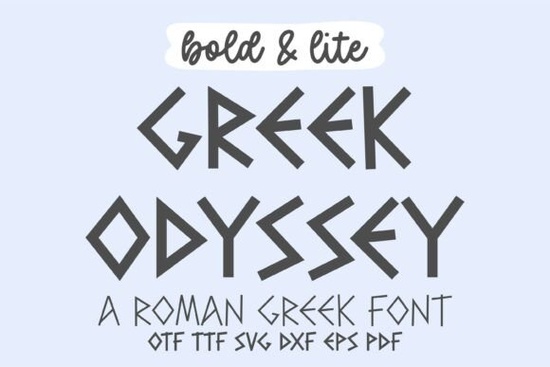
If you're looking for a typeface that brings a sense of ancient history and refined structure to your projects, the Greek Odyssey Font is worth a close look. This Roman Greek-inspired font combines bold, geometric letterforms with a classic elegance that instantly reminds you of marble columns and sculpted stone. Whether you're designing a poster, a wedding invitation, or a brand logo, this font gives you both a strong, assertive style (Bold) and a lighter, more delicate version (Lite) so you can match the tone of your work exactly.
What makes the Greek Odyssey font different from other serif fonts?
Most serif fonts aim for readability, but this one goes further by adding a distinct architectural feel. Each character is carefully crafted to keep the text clear without losing that decorative, historic look. The font includes uppercase and lowercase letters, numbers, punctuation, symbols, alternates, and even multilingual support. That means you can use it for both English and other language projects without worrying about missing accents or special characters. Plus, with PUA encoding, all those extra glyphs are easy to access in any design software.
Is this font good for wedding invitations or formal branding?
Yes, because the Lite style offers a restrained elegance that doesn't overpower your text. You can pair it with simpler fonts for body copy and use Greek Odyssey for headings or monograms. Many designers use it for fashion branding, wine labels, or museum exhibits. The historic character gives your work a timeless, premium feel without looking outdated.
How does it compare to other display fonts?
- Bold style – for headlines, logos, and strong statements
- Lite style – for elegant invitations, subtitles, or body text
- Multilingual support – covers many European languages
- PUA encoded – access all alternates and swashes easily
If you need a completely different feel, the Ransom Pixel font is a fun choice for 8-bit inspired designs. But for that classic stone-carved look, the Greek Odyssey font remains a top pick. It's also perfect for educational materials about ancient history or mythology because the letterforms themselves tell a story.